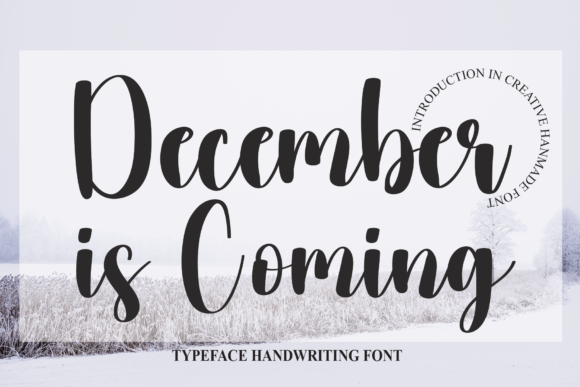
Feast your eyes on December is Coming, an enchanting script font that weaves a spell of elegance and creativity. This magical font is the brainchild of andikastudio, a master in the art of digital calligraphy.
With December is Coming, you hold the key to transforming your creative visions into breathtaking realities. Picture your social media posts adorned with this elegant script, captivating your audience with its enchanting allure. Whether you're a seasoned Instagrammer seeking to elevate your visual storytelling or a DIY enthusiast yearning to add a touch of sophistication to your handmade projects, December is Coming is your muse.
Step into the realm of endless possibilities, where this versatile script dances across your digital canvas. Craft stunning logos that exude timeless charm, design eye-catching posters that demand attention, and create personalized invitations that leave a lasting impression. With December is Coming, your creativity knows no bounds.
So, embark on this magical journey with December is Coming, and let your imagination soar. Embrace the beauty of elegance, unleash the power of creativity, and transform your digital dreams into captivating realities.
• Expertly crafted script font
• Exudes elegance and sophistication
• Perfect for Instagram posts and calligraphy projects
• Brings creative ideas to life
• Ideal for logos, posters, and invitations